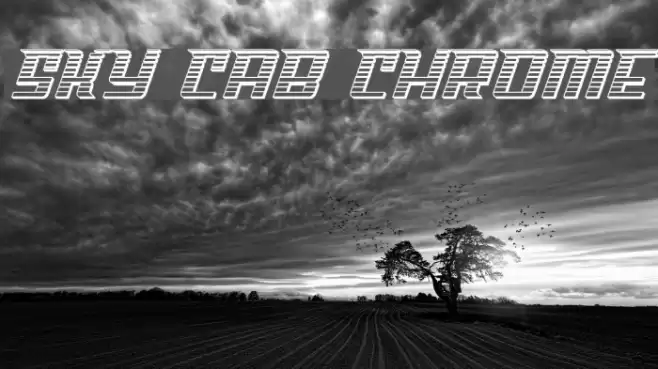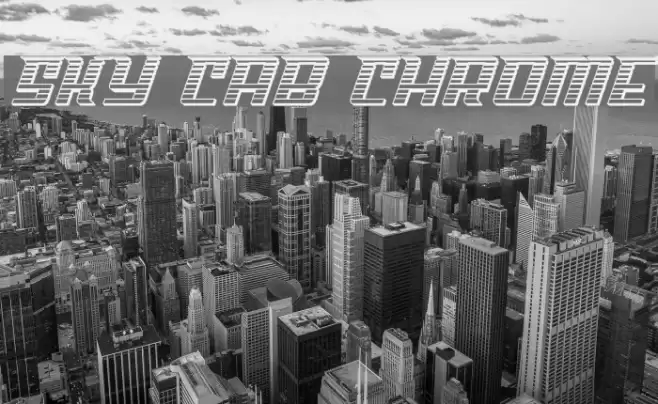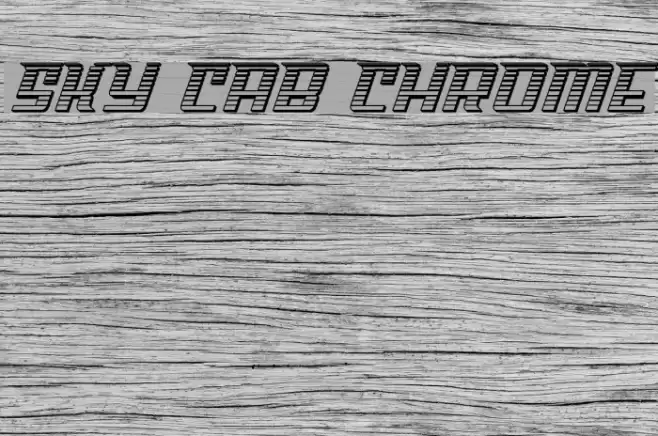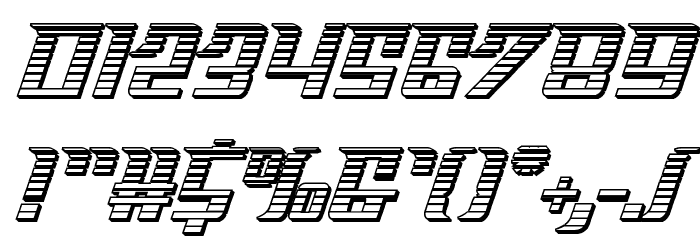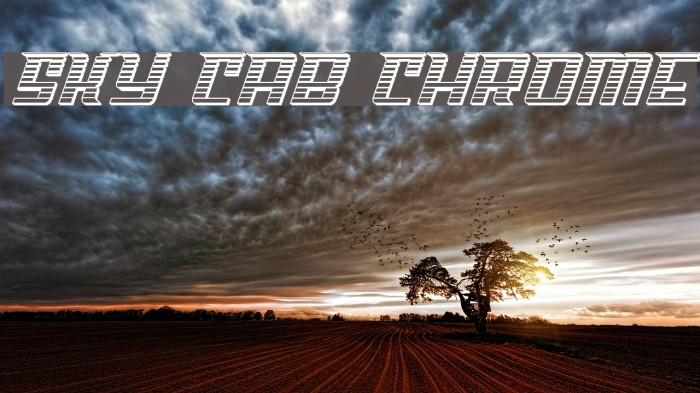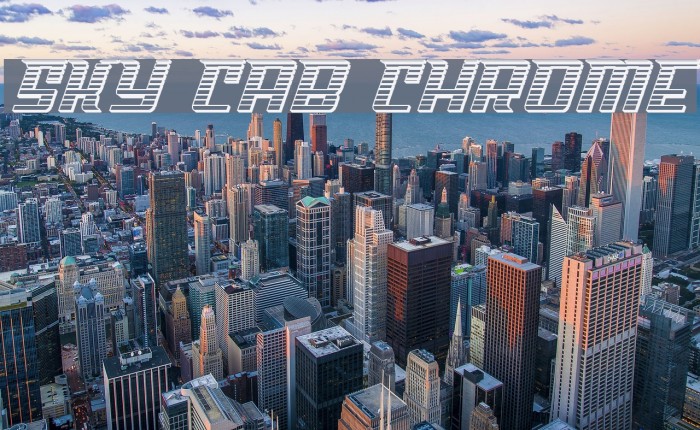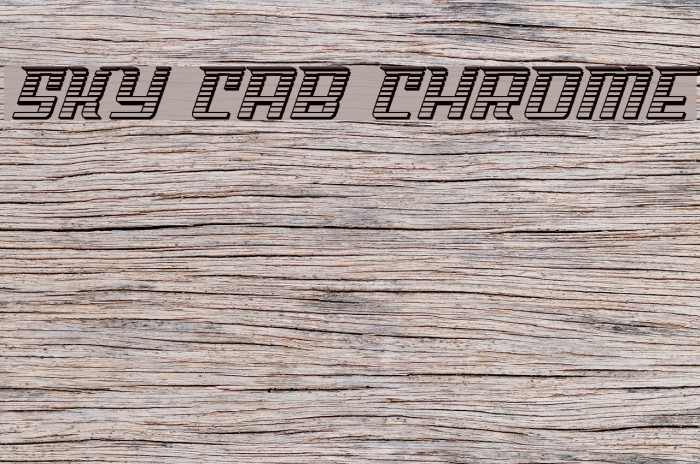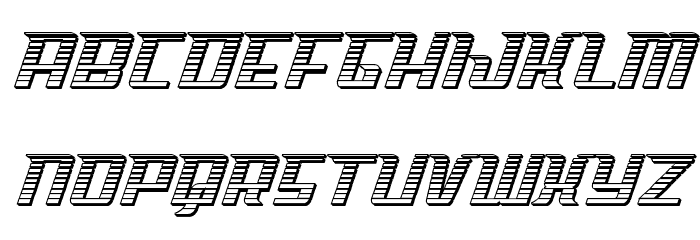
Sky Cab Chrome Font
Sky Cab Chrome Description
This font features a bold, futuristic design with a three-dimensional effect created by parallel lines running through each character. The uppercase and lowercase letters maintain a consistent style, emphasizing geometric shapes and sharp angles. The numbers and special characters follow the same design principles, ensuring uniformity across all glyphs. The font's unique appearance makes it stand out, with a distinct, modern aesthetic that is both eye-catching and versatile. The spacing between characters is tight, contributing to its compact and cohesive look. This font is ideal for projects that require a strong visual impact, such as branding, advertising, and digital media.
A bold, futuristic font with a three-dimensional effect and geometric design from Sci-fi fonts.
- Proposed Projects: Ideal for branding, advertising, digital media, and any project requiring a strong visual impact.
- Character Spacing: Tight